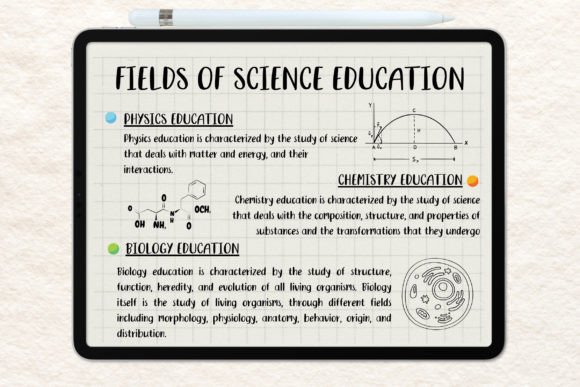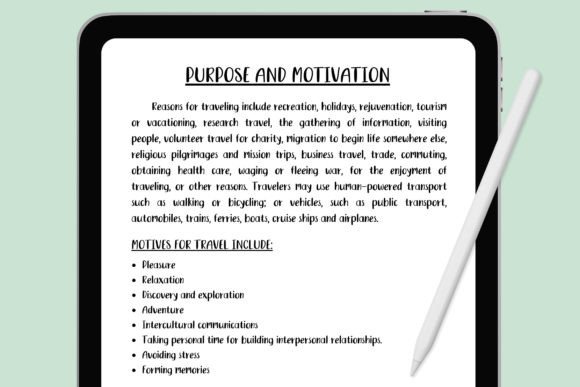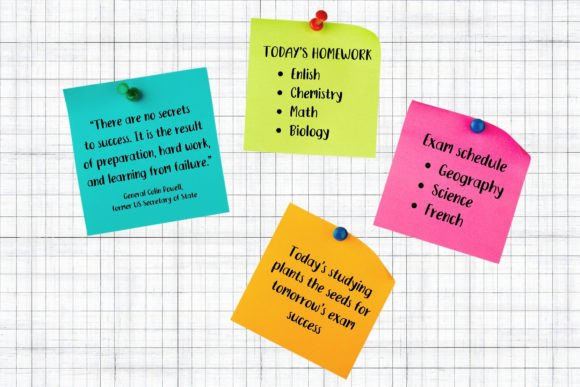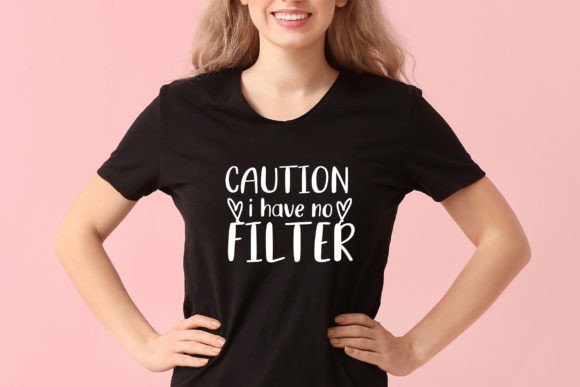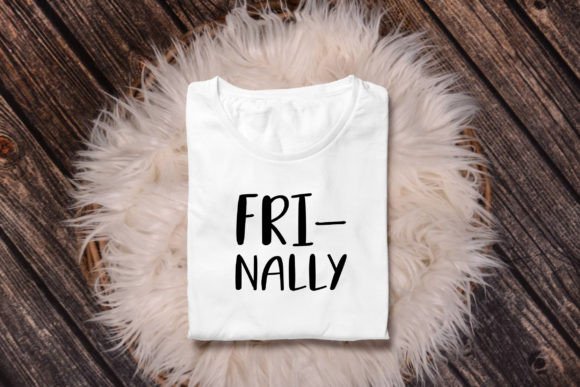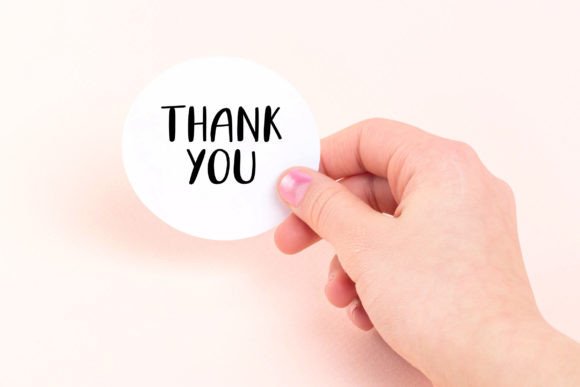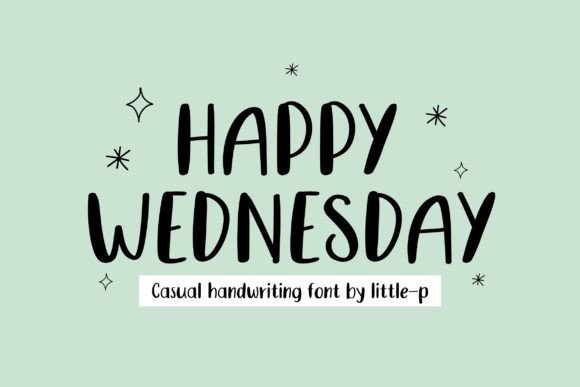
Introducing Happy Wednesday Font: Elevate Your Creativity with Effortless Handwriting
Are you tired of using the same old fonts for your notes, planners, and creative projects? Look no further! We’re excited to introduce “Happy Wednesday,” a font that embodies the spirit of casual and effortless handwriting. This versatile font is designed to be your perfect companion for a wide range of applications, from note-taking and digital planners to greeting cards, quotes, and branding.
The Essence of Happy Wednesday Font
Happy Wednesday Font is all about embracing the laid-back and carefree vibe of handwritten text. Its unique style is characterized by:
• Fluid strokes and subtle imperfections, giving it a human touch
• A relaxed and casual tone, perfect for everyday use
• Excellent legibility, making it easy to read and understand
Whether you’re a designer, crafter, or simply someone who loves to express themselves through writing, Happy Wednesday Font is sure to become your go-to choice.
Endless Applications for Happy Wednesday Font
The versatility of Happy Wednesday Font is one of its most appealing features. Here are just a few examples of how you can use this amazing font:
• Note-taking: Add a personal touch to your notes and make studying more enjoyable
• Digital Planners: Create visually appealing and functional planners that make organization a breeze
• Traditional Planners: Elevate your paper planners with a font that feels like handwriting
• Journals: Make journaling a delightful experience with Happy Wednesday Font
• Educational Notes: Make learning more engaging and fun with this friendly font
• Goodnotes: Enhance your digital notes and make them more visually appealing
• Greeting Cards: Create heartfelt and personalized greeting cards for special occasions
• Quotes: Add a touch of elegance and sophistication to your quote designs
• Handwritten Notes: Make your handwritten notes feel more like art than ordinary text
• Branding: Use Happy Wednesday Font to create a unique and recognizable brand identity
Why Choose Happy Wednesday Font?
So, what sets Happy Wednesday Font apart from other fonts? Here are just a few reasons why designers and crafters love this font:
• Unique Style: Happy Wednesday Font has a distinct personality that sets it apart from other fonts
• High Legibility: The font is designed to be easy to read, even at small sizes
Get Ready to Elevate Your Creativity!
Happy Wednesday Font is more than just a font – it’s a creative tool that can help you express yourself in new and exciting ways. Whether you’re a seasoned designer or a crafty hobbyist, this font is sure to inspire you to try new things and push the boundaries of your creativity.
In conclusion, Happy Wednesday Font is a game-changer for anyone who loves handwriting, design, or crafting. Its unique style, versatility, and ease of use make it the perfect companion for a wide range of applications. Whether you’re looking to elevate your notes, create stunning visual content, or simply add a personal touch to your projects, Happy Wednesday Font is the perfect choice.